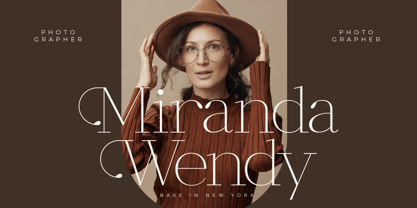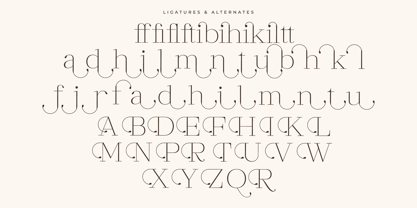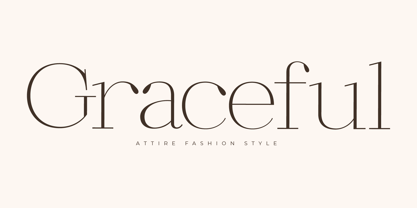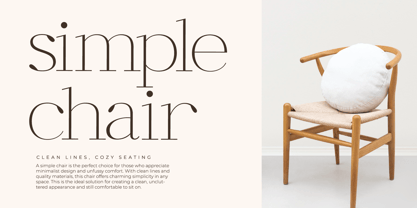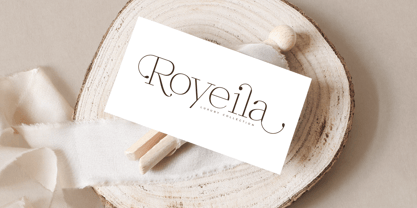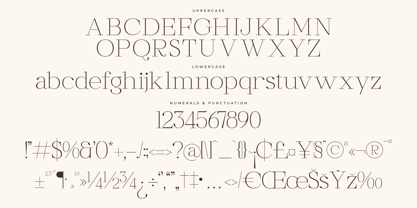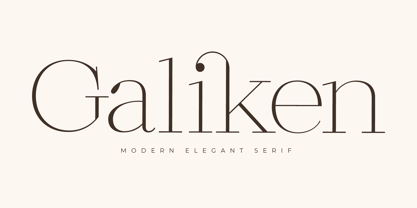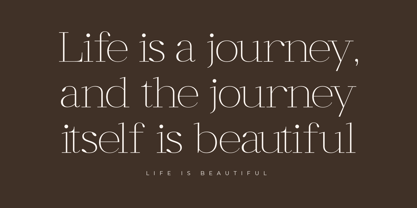
Galiken
The Galiken Font Family was designed by Heru Utama Putra and published by Letterena Studios. Galiken contains 2 styles and family package options. More about this family
Galiken - Modern Elegant Serif , from Letterena, is a Luxury Serif font, suitable for any projects such as: logos, branding projects, homeware designs, product packaging, mugs, quotes, posters, shopping bags, t-shirts, book covers, name card, invitation cards, greeting cards, label, photography, watermark, special events, and all your other luxury and beautiful projects that need a Luxury serif taste.